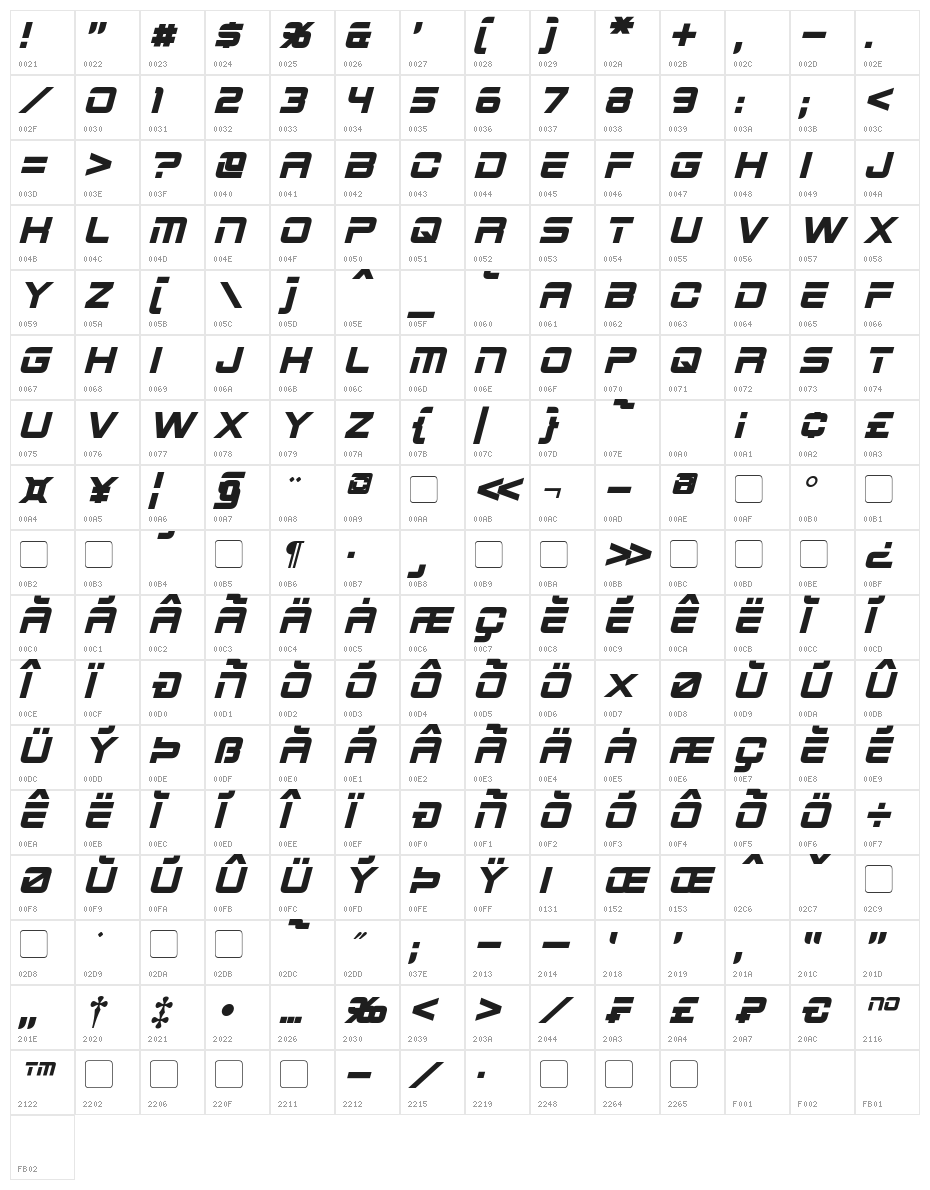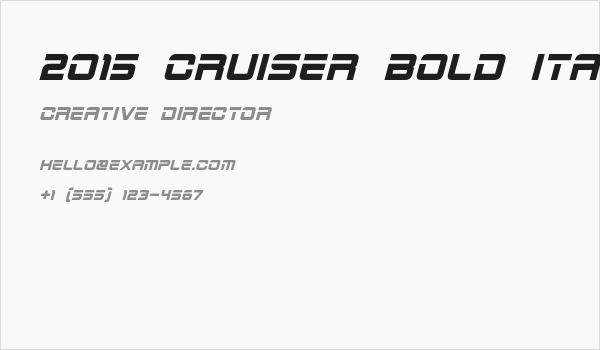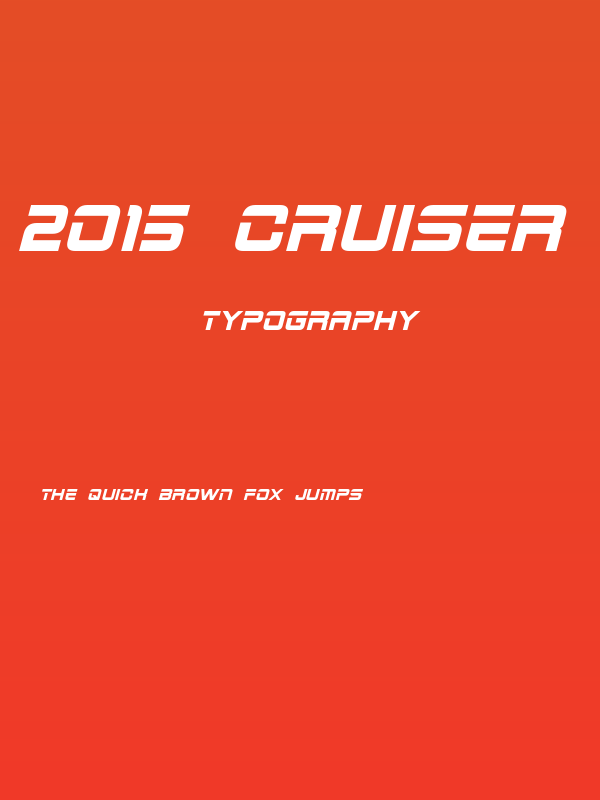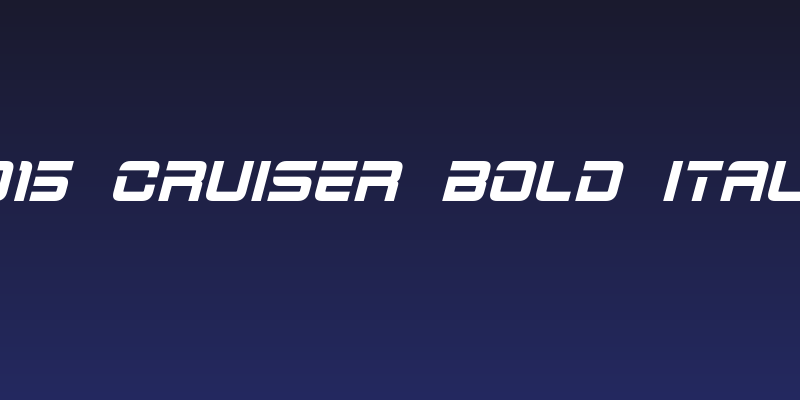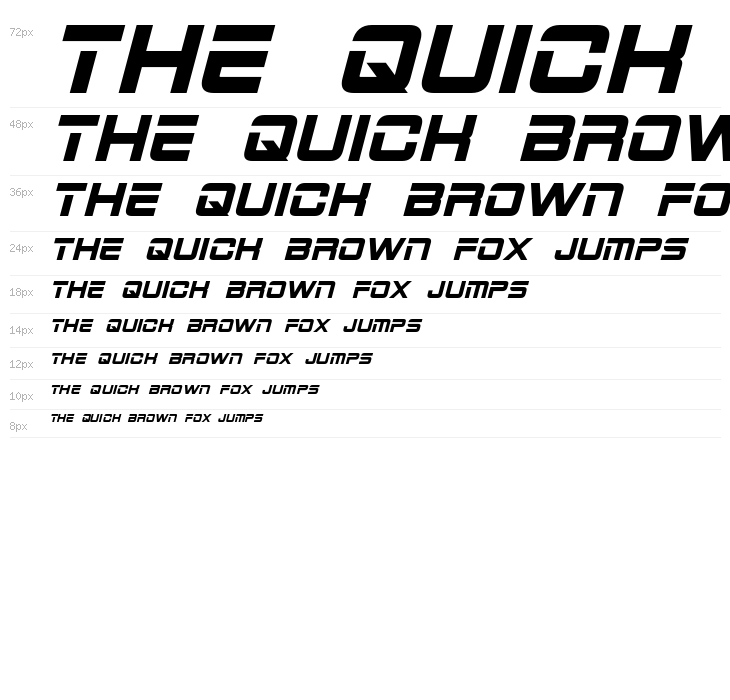
2015 Cruiser Bold Italic Font
2015 Cruiser Bold Italic Description
This font features a bold and italicized style with a modern and dynamic appearance. The characters are slightly slanted, giving a sense of motion and speed. The strokes are thick and consistent, providing a strong visual impact. The design includes sharp angles and clean lines, making it suitable for attention-grabbing headlines and titles. The spacing between characters is tight, enhancing the compact and cohesive look of the text. Overall, this font conveys a sense of energy and modernity, ideal for projects that require a bold statement.
| Proposed Projects | Ideal for automotive branding, sports team logos, dynamic posters, and modern advertising campaigns. |